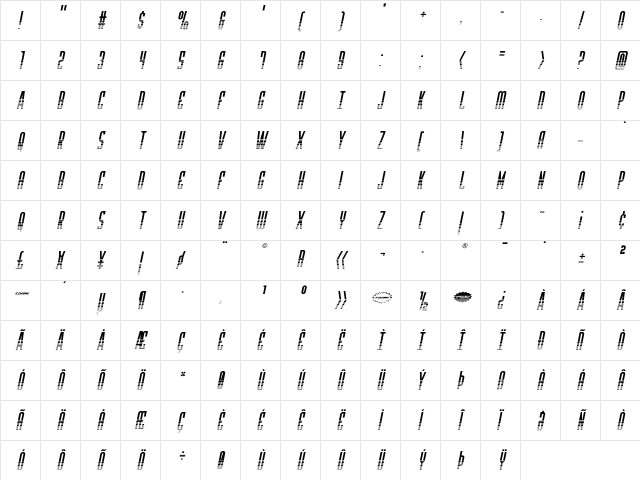
Y-Files Halftone Italic Italic
Design Context for Y-Files Halftone Italic Typeface
Y-Files Halftone Italic is a composed and adaptable typeface that performs quietly and consistently across a wide range of design contexts. The dynamic lean of this cut emphasises speed and emphasis in any layout.
Pro Tip: Try Y-Files Halftone Italic for annotation and caption copy alongside an upright companion — the contrast in angle creates a dynamic but ordered typographic system.